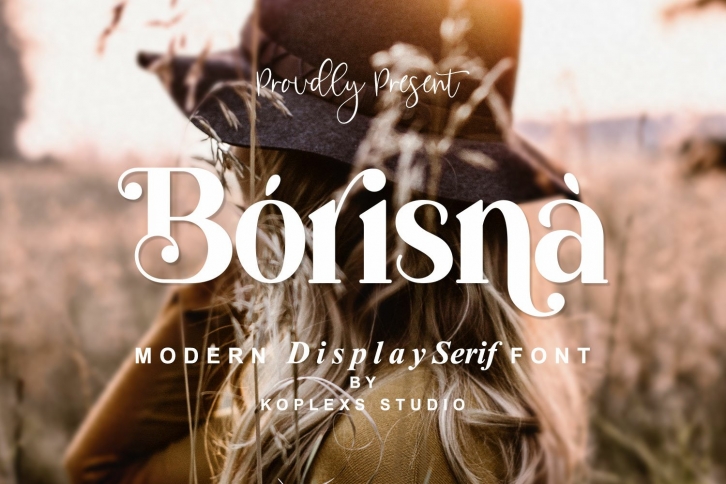
Borisna is a beautiful font that was designed by Koplexs Studio. It's a great choice for designers and creatives who need such a font. It was released on July 27, 2022 and the file size is 11.38 MB. Borisna may give a more youthful, expressive and casual look to your project. It is a very beautiful, refined, elegant, and high-quality font.